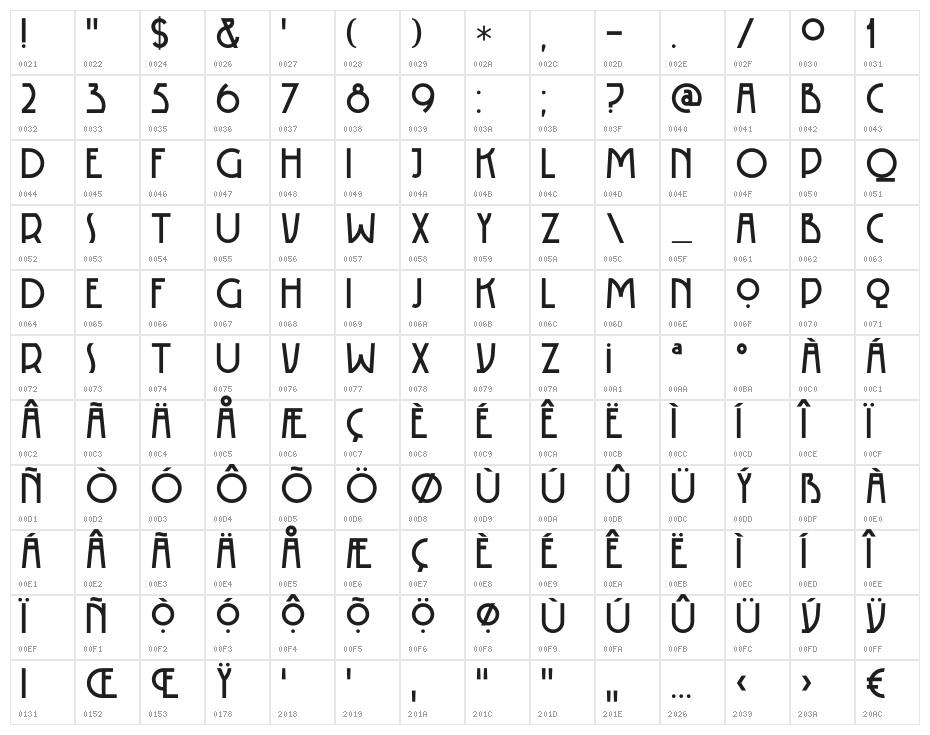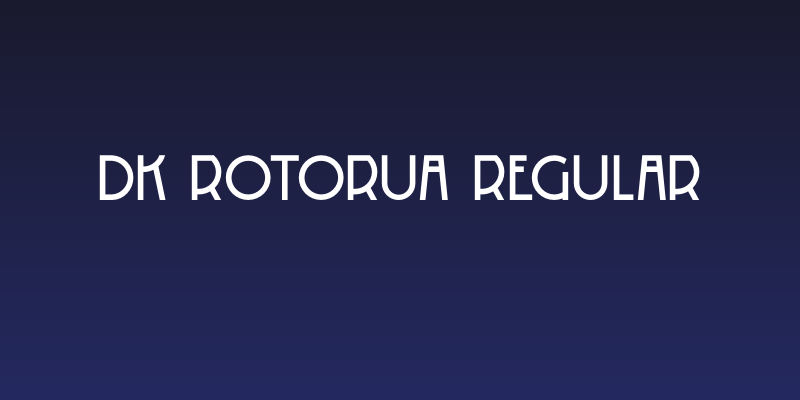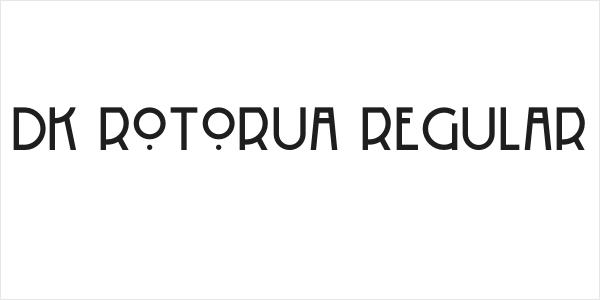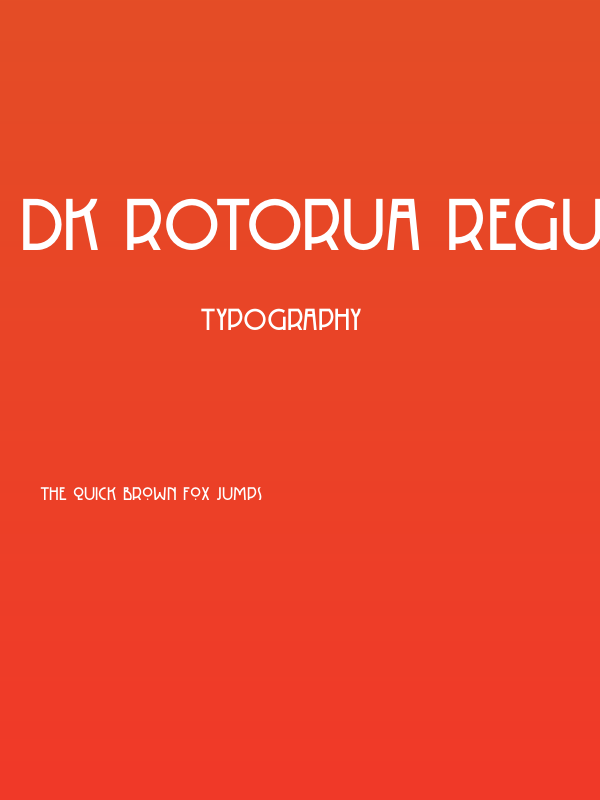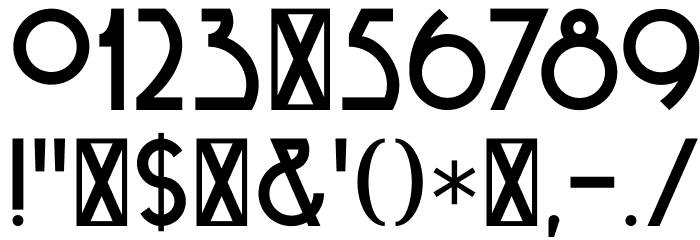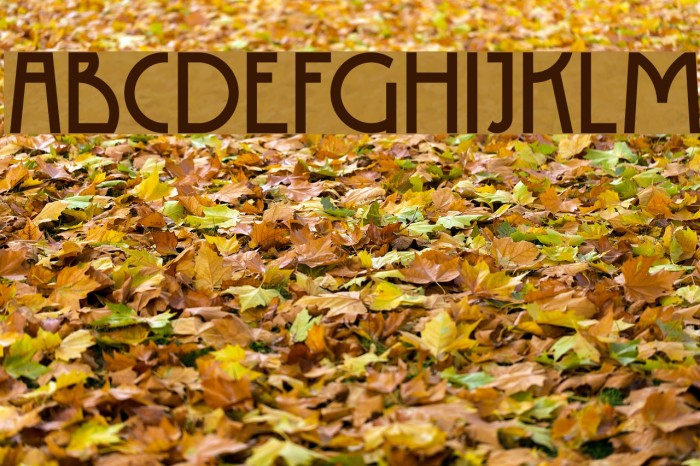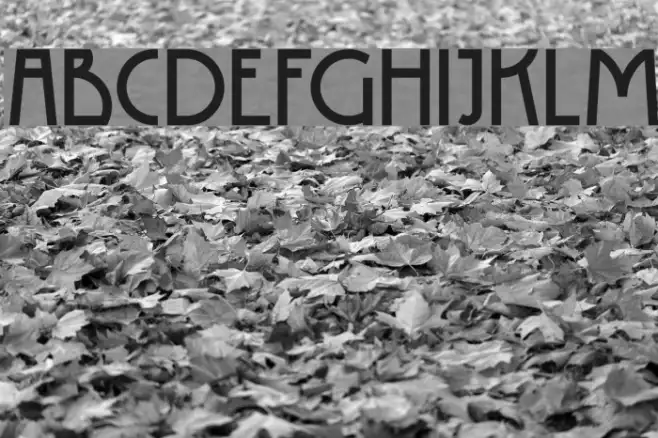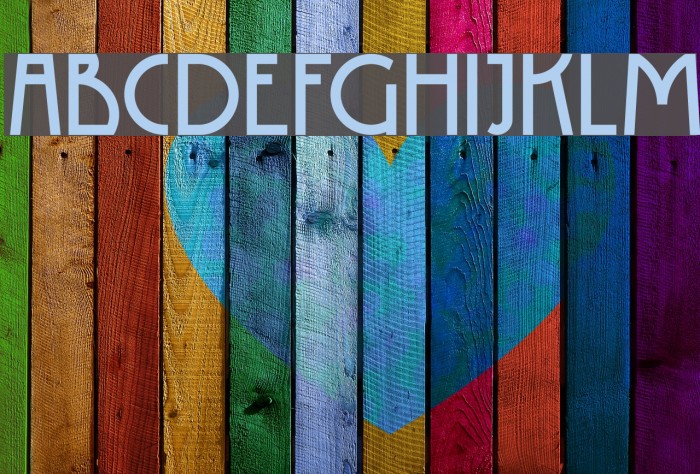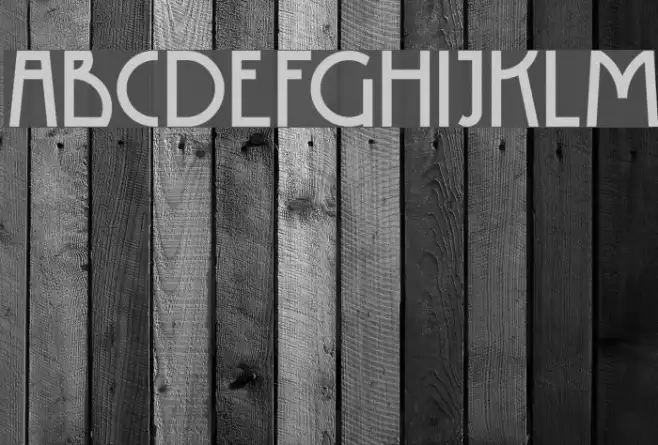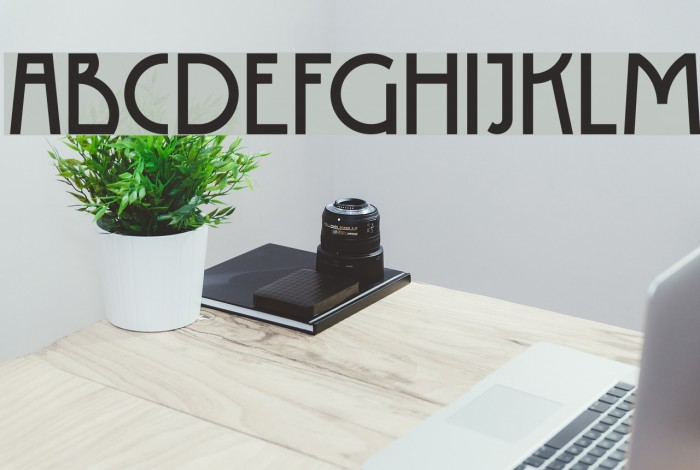
DK Rotorua Regular Font
DK Rotorua Regular Description
This font features a bold and geometric design with a strong emphasis on angular lines and sharp edges. The uppercase letters are characterized by their tall, narrow shapes, while the lowercase letters maintain a consistent style with slightly more rounded forms. The numerals are distinct and maintain the geometric theme, offering a unique visual appeal. Special characters are integrated seamlessly, maintaining the overall aesthetic. The font's design is both modern and slightly retro, making it versatile for various applications.
| Proposed Projects | Ideal for branding, posters, and headlines where a strong visual impact is desired. |